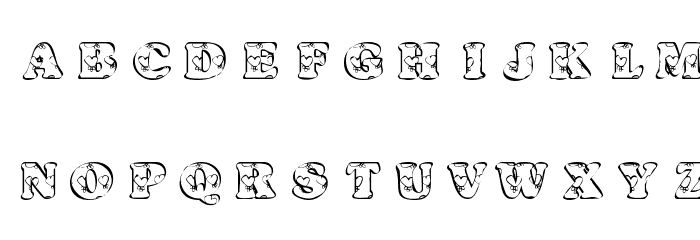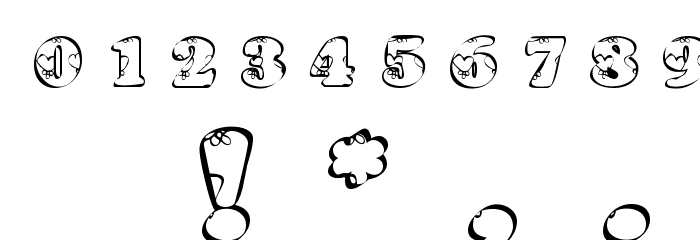
KR Heartfilled Font
This playful and decorative font features bold, uppercase and lowercase letters filled with heart shapes, creating a whimsical and romantic appearance. The characters are outlined, allowing the heart patterns to stand out against various backgrounds. The font includes numbers and a selection of special characters, all maintaining the heart-filled theme. Its unique style makes it suitable for projects that require a touch of charm and creativity, such as greeting cards, invitations, and playful branding. The font's design is consistent across all characters, ensuring a cohesive look.
A decorative font with heart-filled characters, perfect for romantic and playful designs.
- Proposed Projects: Ideal for greeting cards, wedding invitations, playful branding, and Valentine's Day promotions.